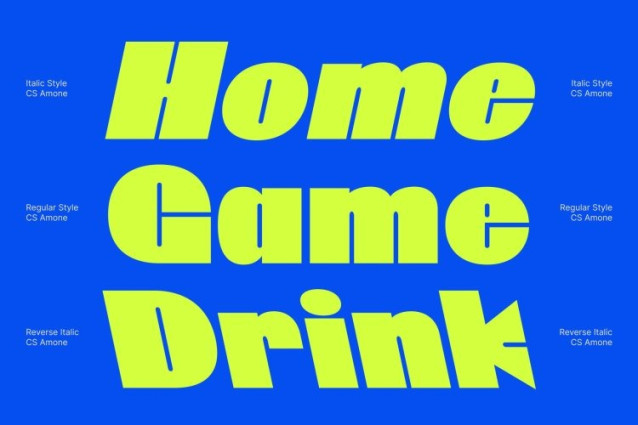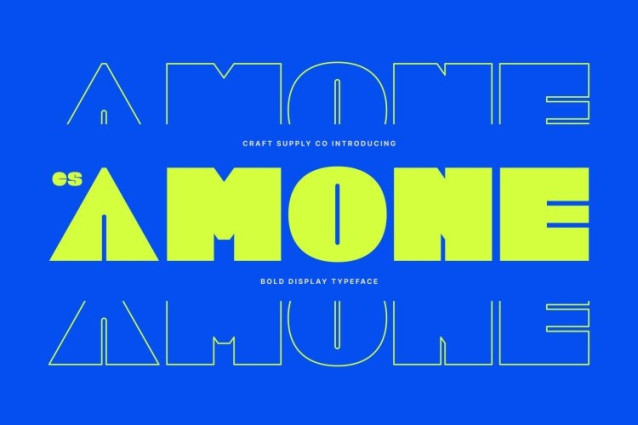
CS Amone Font
CS Amone Font This is a bold display font designed to project confidence, strength, and unmistakable presence. Built with heavy strokes and commanding proportions, this typeface delivers an assertive visual impact that immediately captures attention. Its bold construction creates a solid foundation, making every word feel intentional, powerful, and impossible to ignore.
Strong Letterforms with Powerful Weight
Each letterform in this font is shaped with substantial weight and balanced structure, resulting in a typeface that feels stable, confident, and visually grounded. The thick strokes and bold silhouettes give the font a muscular character, ensuring maximum visibility even at a glance.
Designed to Command Attention
This font a thrives in designs that demand impact. Its bold personality makes it an excellent choice for headlines, posters, and hero text where grabbing attention is non-negotiable. The font’s confident stance naturally draws the eye, allowing designers to create focal points that feel strong, decisive, and memorable. Whether used sparingly or as the main typographic voice, elevates the intensity of any layout.
Perfect for Impactful Branding and Visual Statements
Ideal for branding, advertising, merchandise, and promotional materials, helps brands express confidence and bold identity. It is particularly effective for projects that aim to leave a lasting impression such as logos, campaign visuals, and bold editorial layouts.